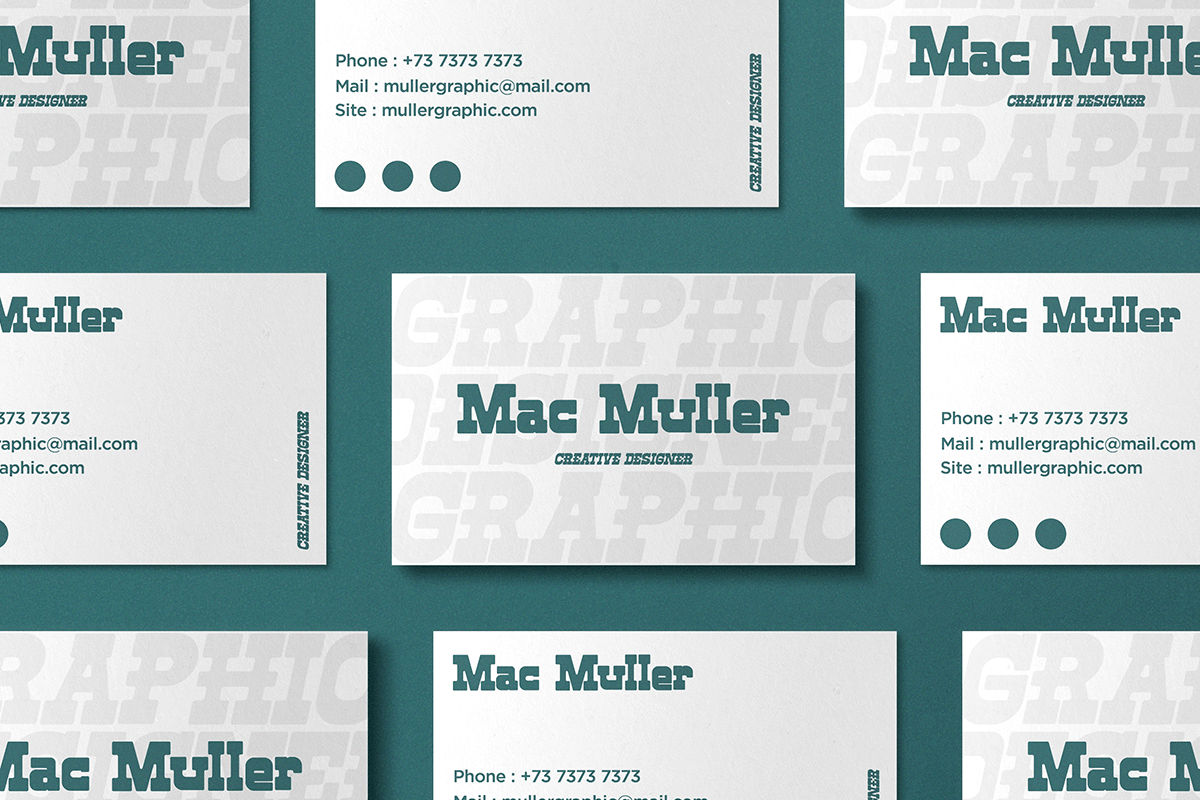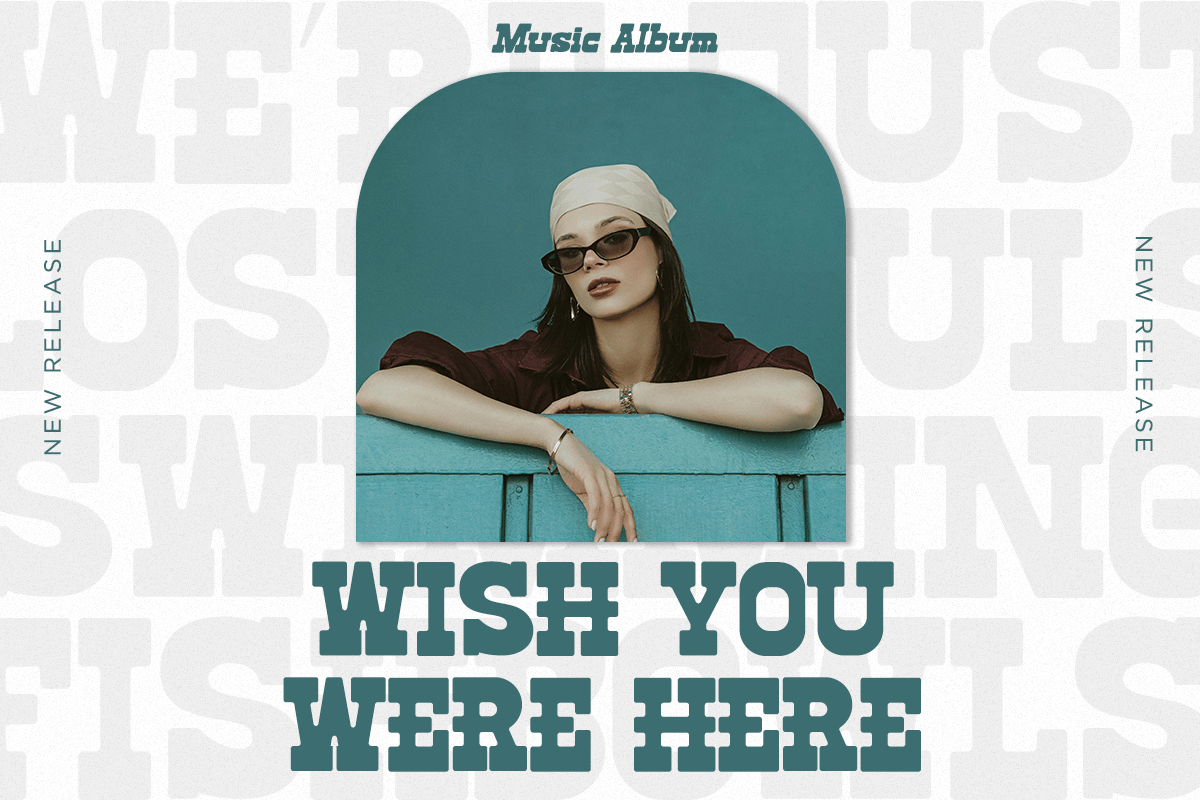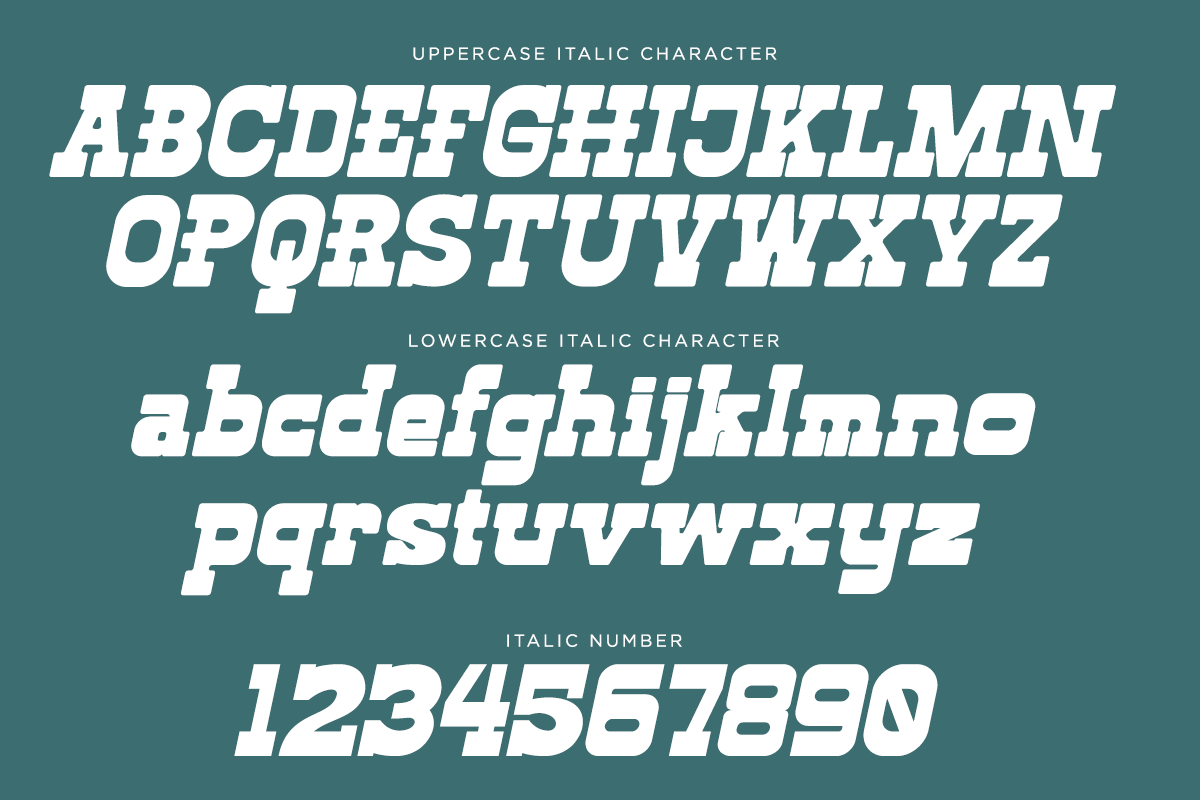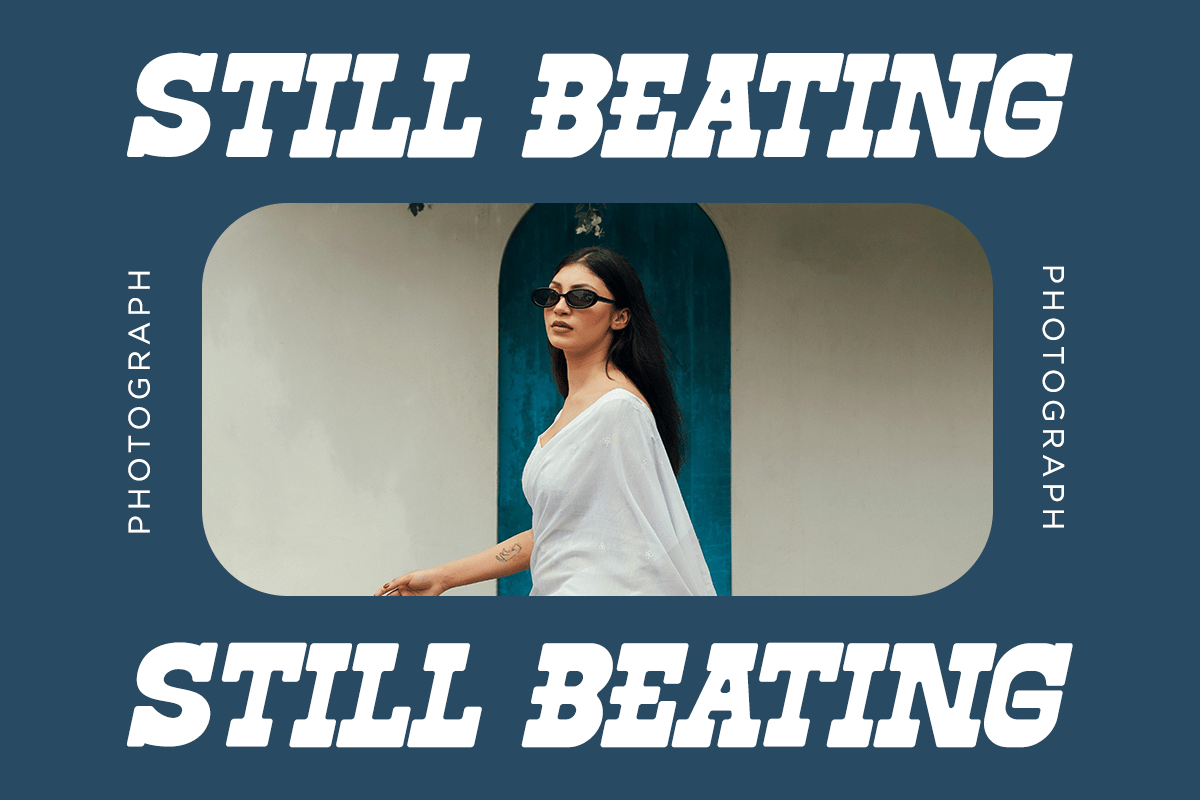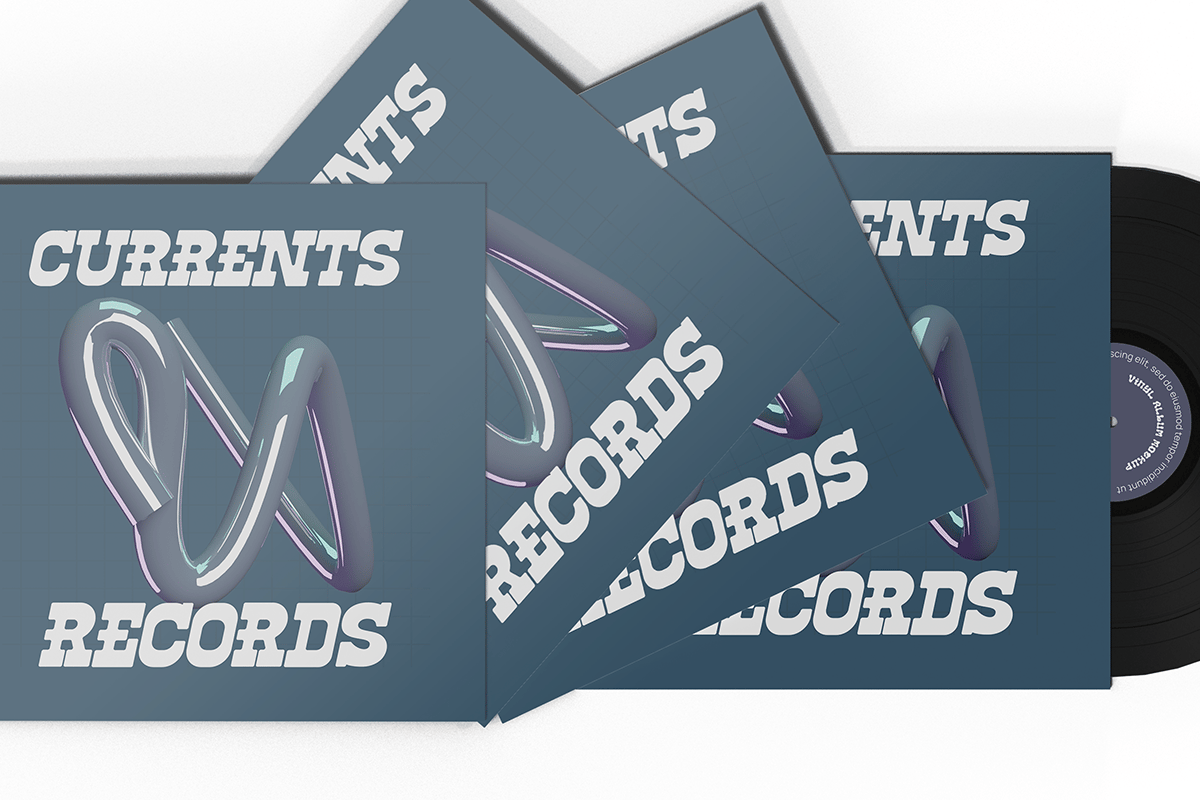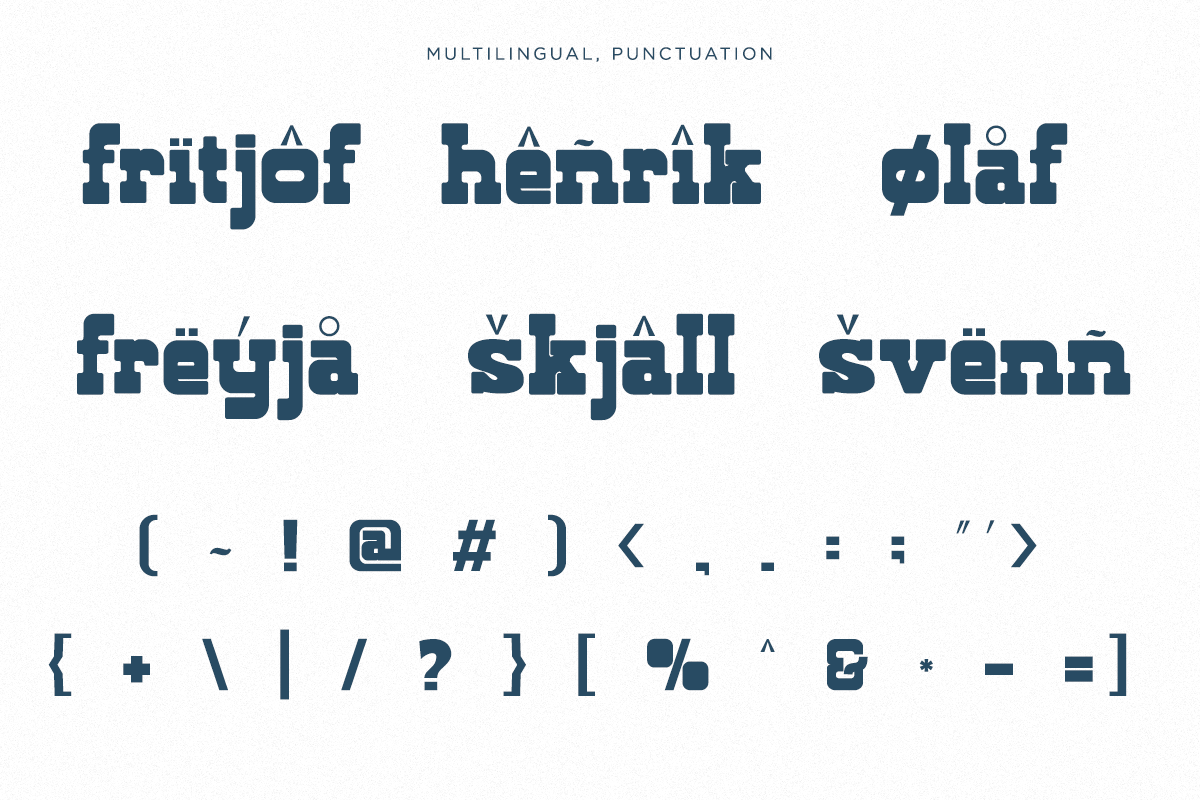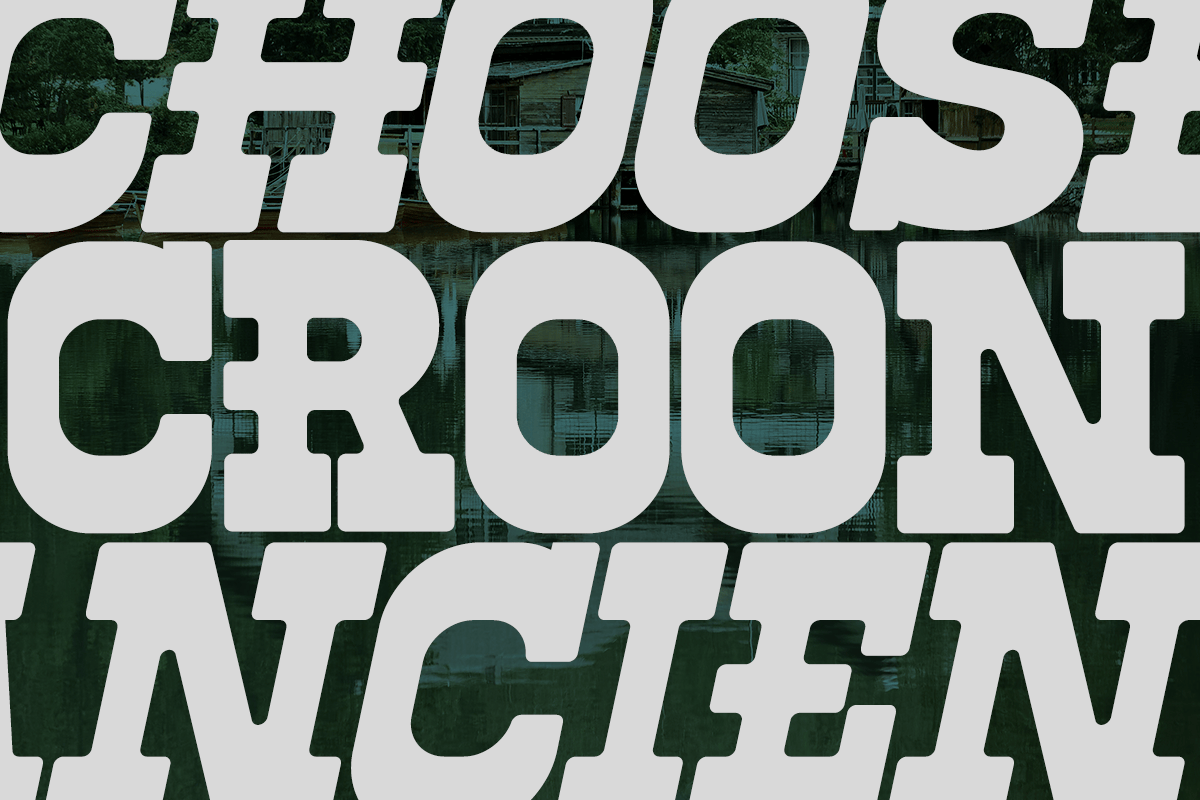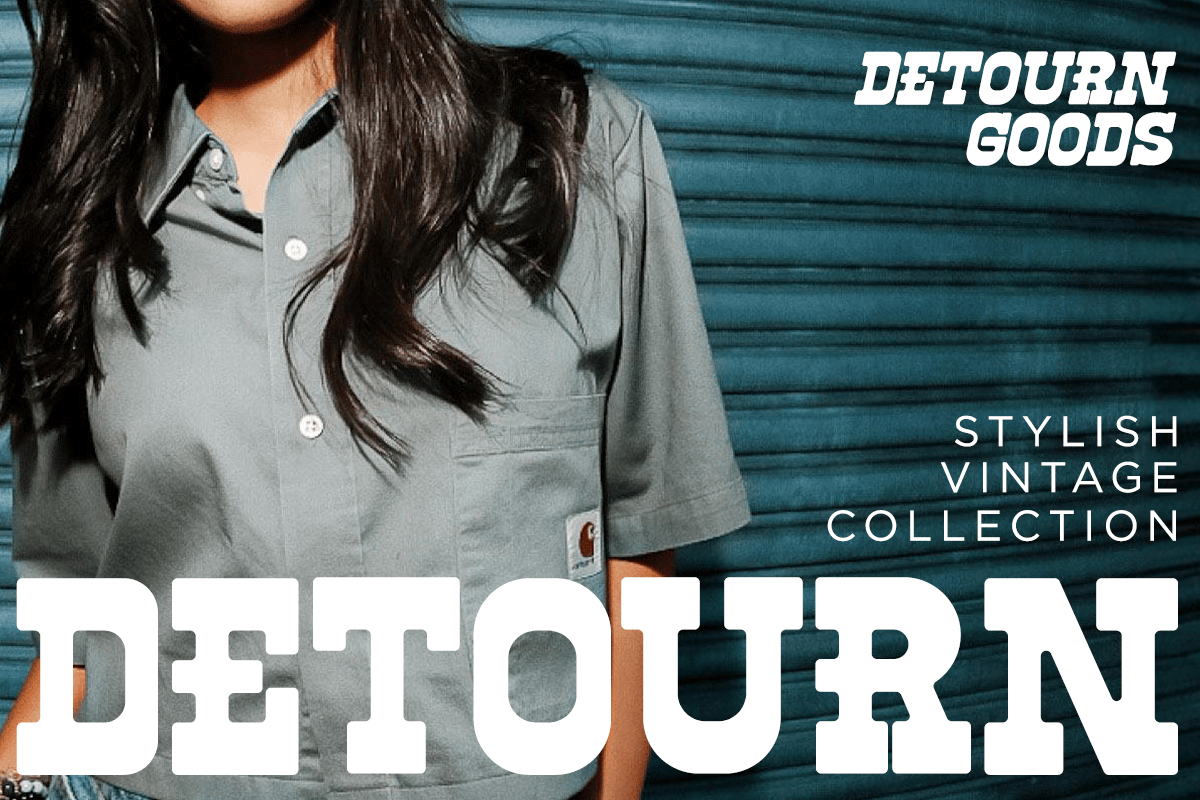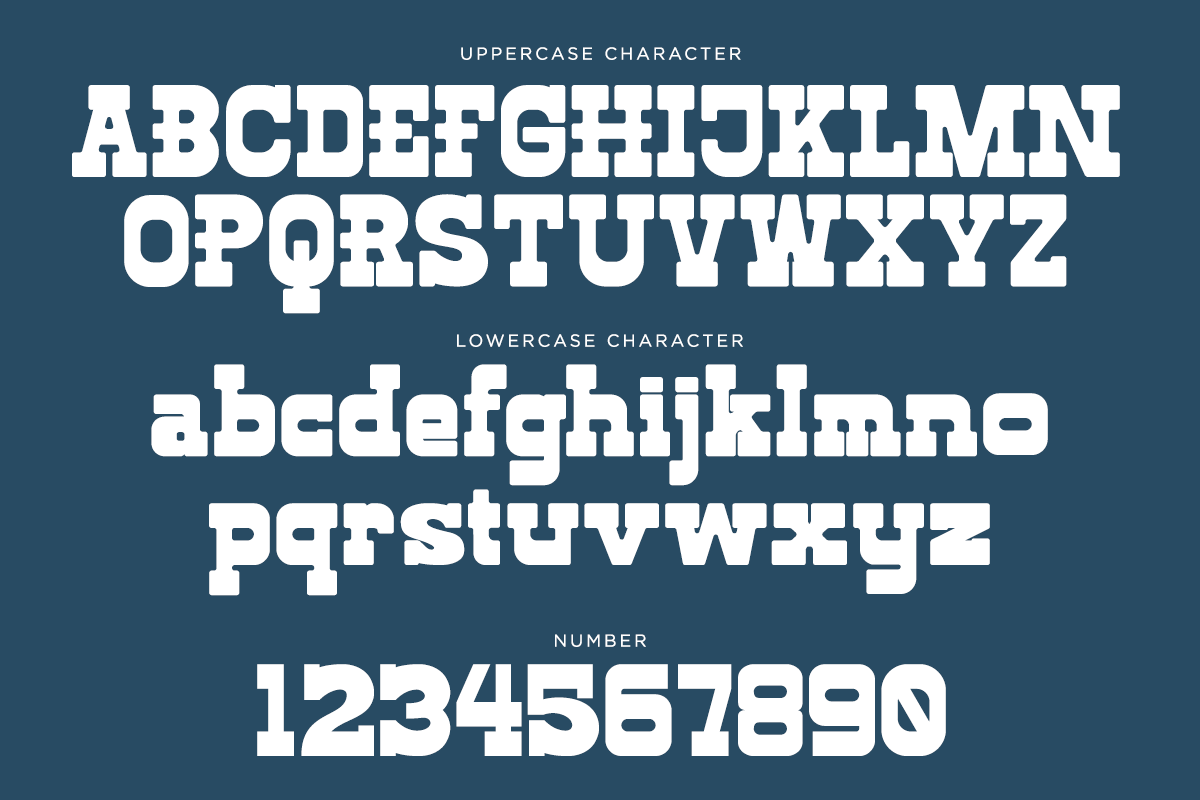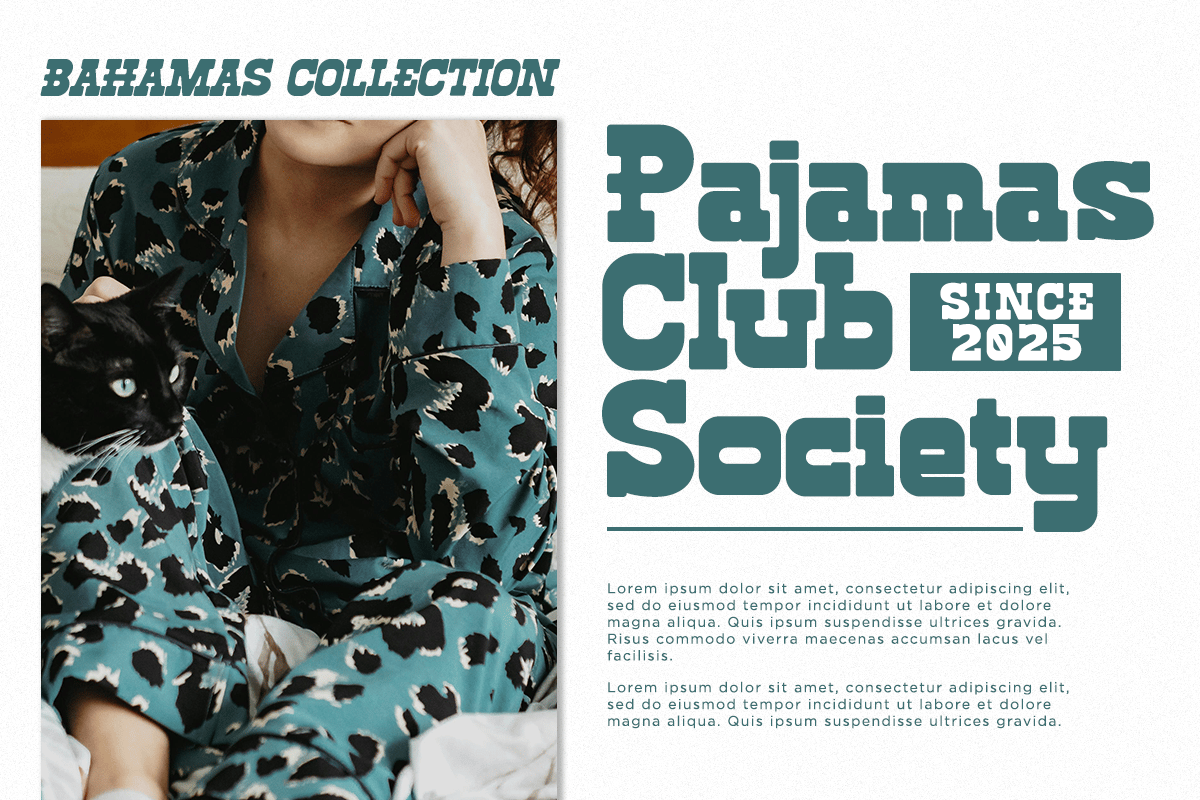
Anymore - Stylish Slab Serif Font
Anymore is a bold and stylish slab serif font that blends vintage charm with a modern touch. Designed with strong, blocky serifs and a confident presence, this typeface is perfect for headlines, branding, posters, logos, editorial layouts, and display projects that demand attention.
Available in Regular and Italic styles, Anymore brings classic Americana vibes with a clean, contemporary finish—making it versatile for both retro and modern design themes. Elevate your creative work with a font that stands out while staying beautifully balanced.